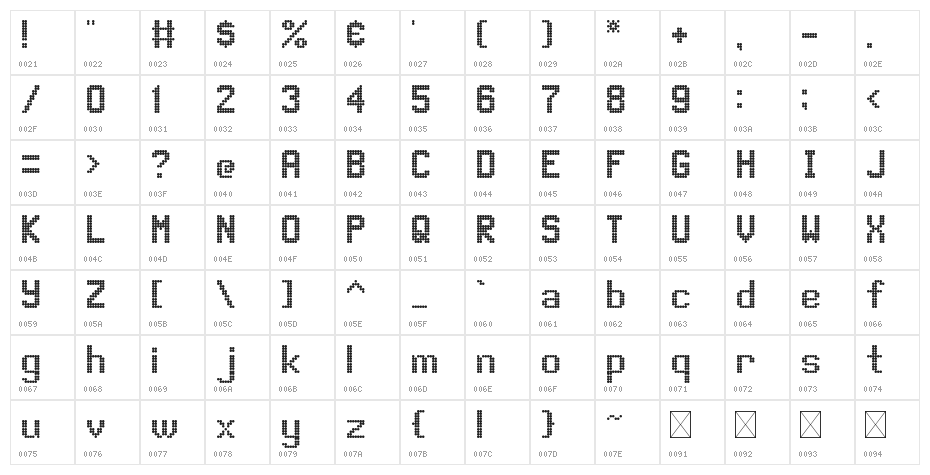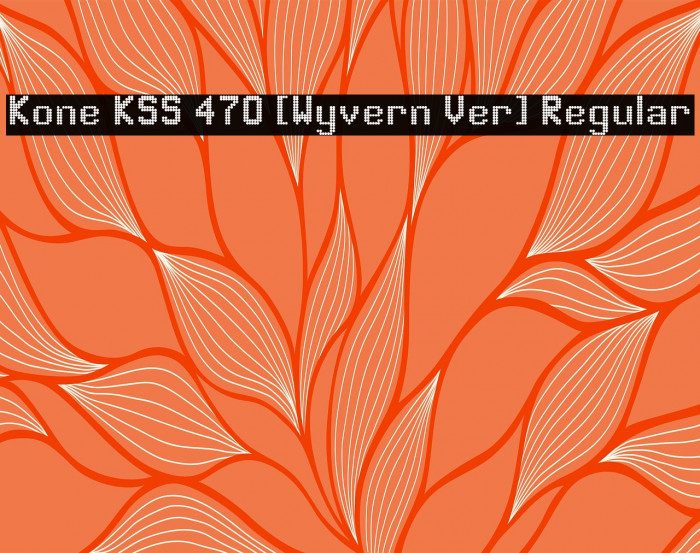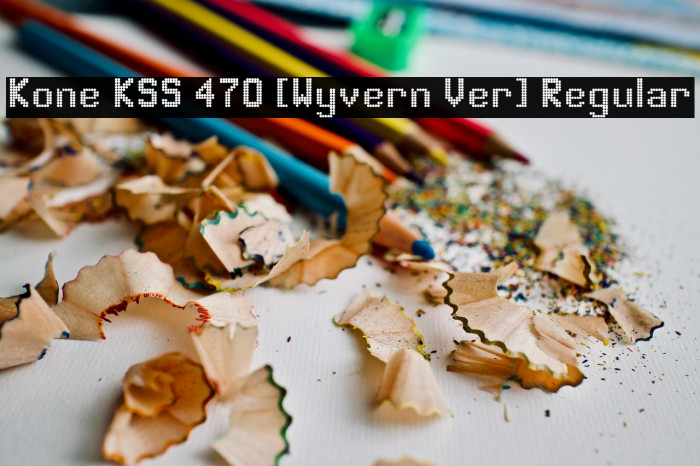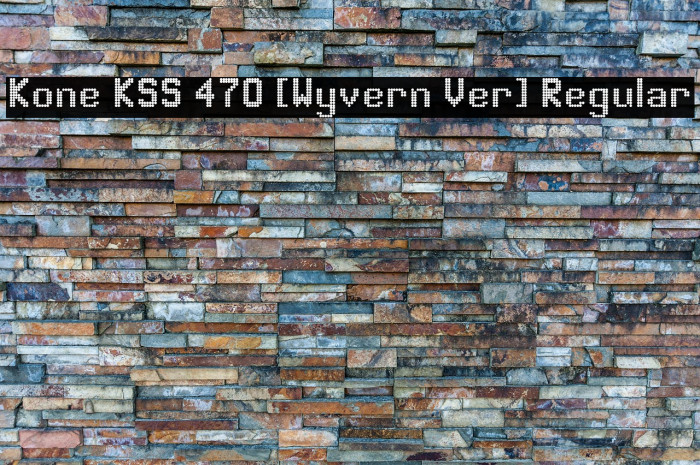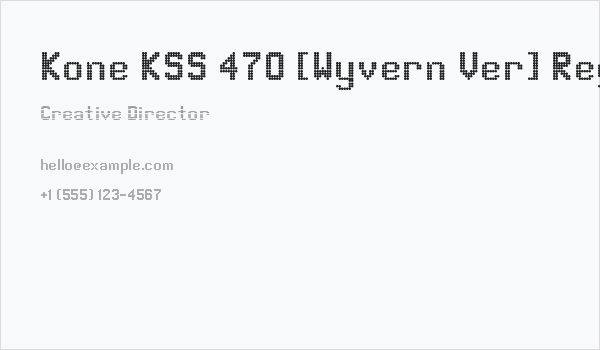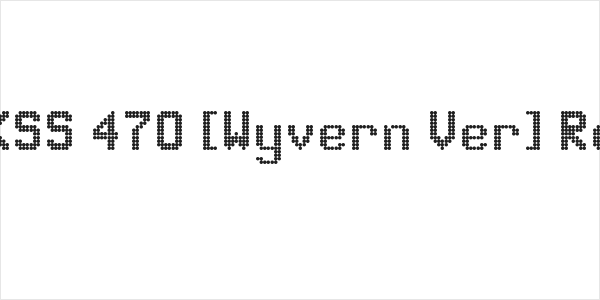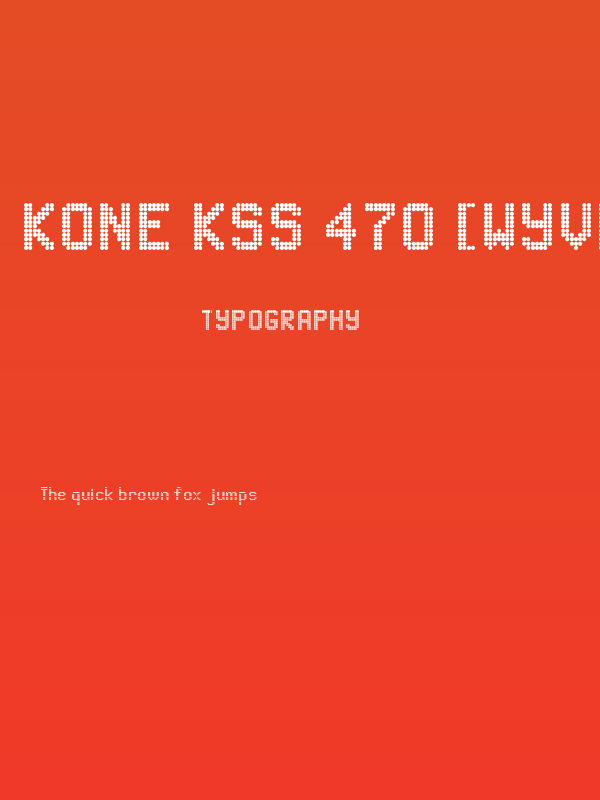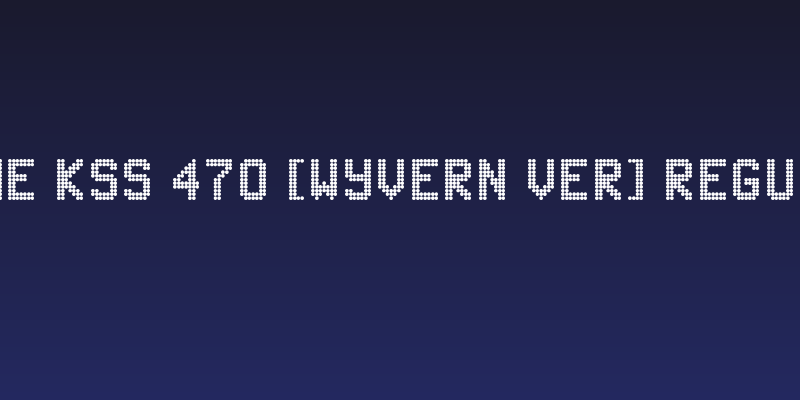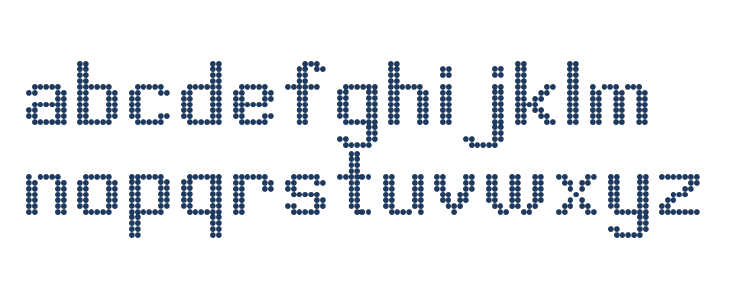
Kone KSS 470 [Wyvern Ver] Regular Font
Kone KSS 470 [Wyvern Ver] Regular Description
This font features a unique design composed entirely of small, evenly spaced dots forming each character. The overall appearance is digital and modern, reminiscent of LED displays or dot matrix printers. The characters are uniformly constructed, providing a consistent and cohesive look across both uppercase and lowercase letters, as well as numerals and special symbols. The style is playful yet structured, making it suitable for projects that require a distinctive and eye-catching typeface.
| Use Case | Headlines, Logos, Digital displays |
| Proposed Projects | Ideal for digital displays, retro-themed designs, tech branding, and creative posters. |